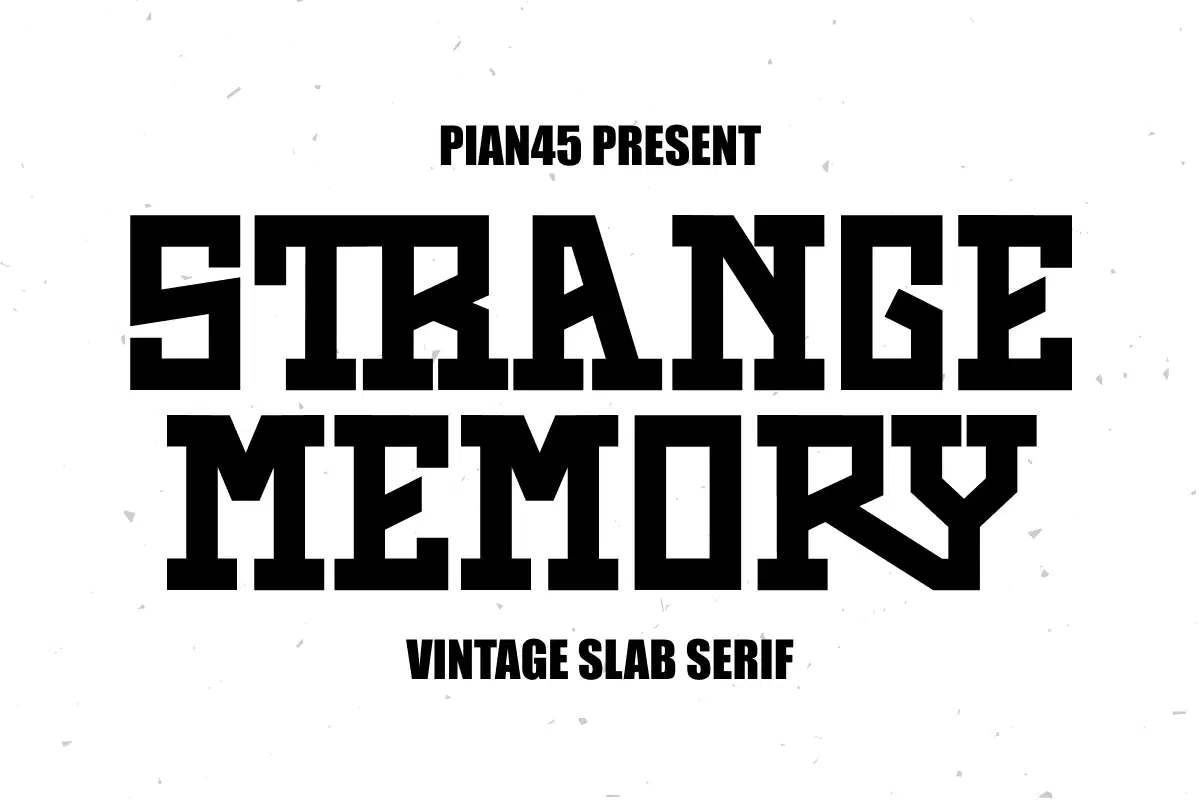
Strange Memory - Vintage Slab Serif Font
Strange Memory is a bold vintage slab serif font inspired by classic western typography and retro sports lettering. It features strong geometric shapes and sharp serifs that give your design a confident, nostalgic, and timeless look.
Perfect for logos, posters, headlines, apparel, packaging, and retro branding, Strange Memory brings a mix of toughness and vintage charm. Whether you're creating a cowboy-style design, a college logo, or bold display typography, this font makes every project stand out.